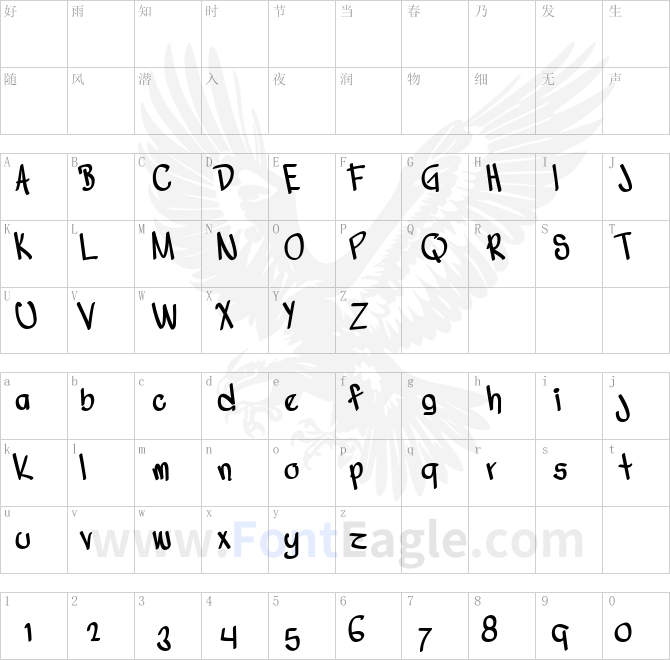
Nuevo-Vago is a great font, widely used in graphic design, single-page menu design, poster design and other fields, and is deeply loved by designers.Nuevo-Vago download.